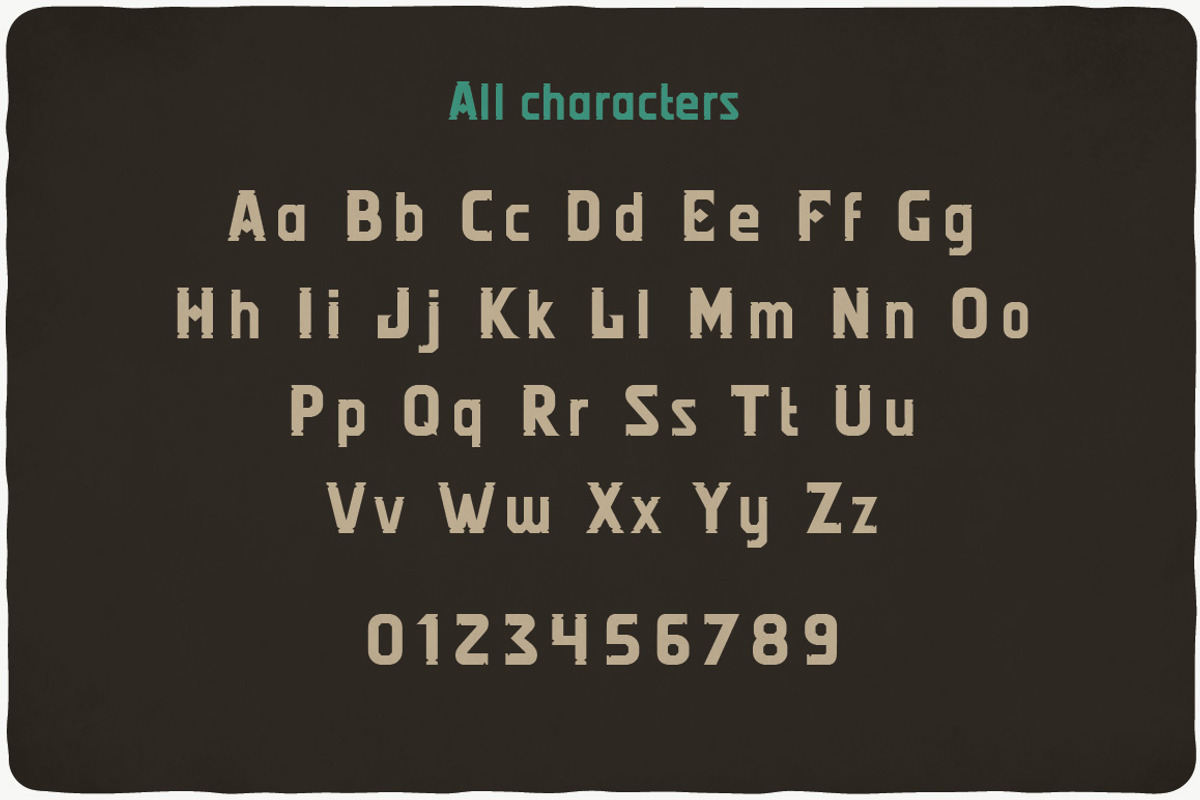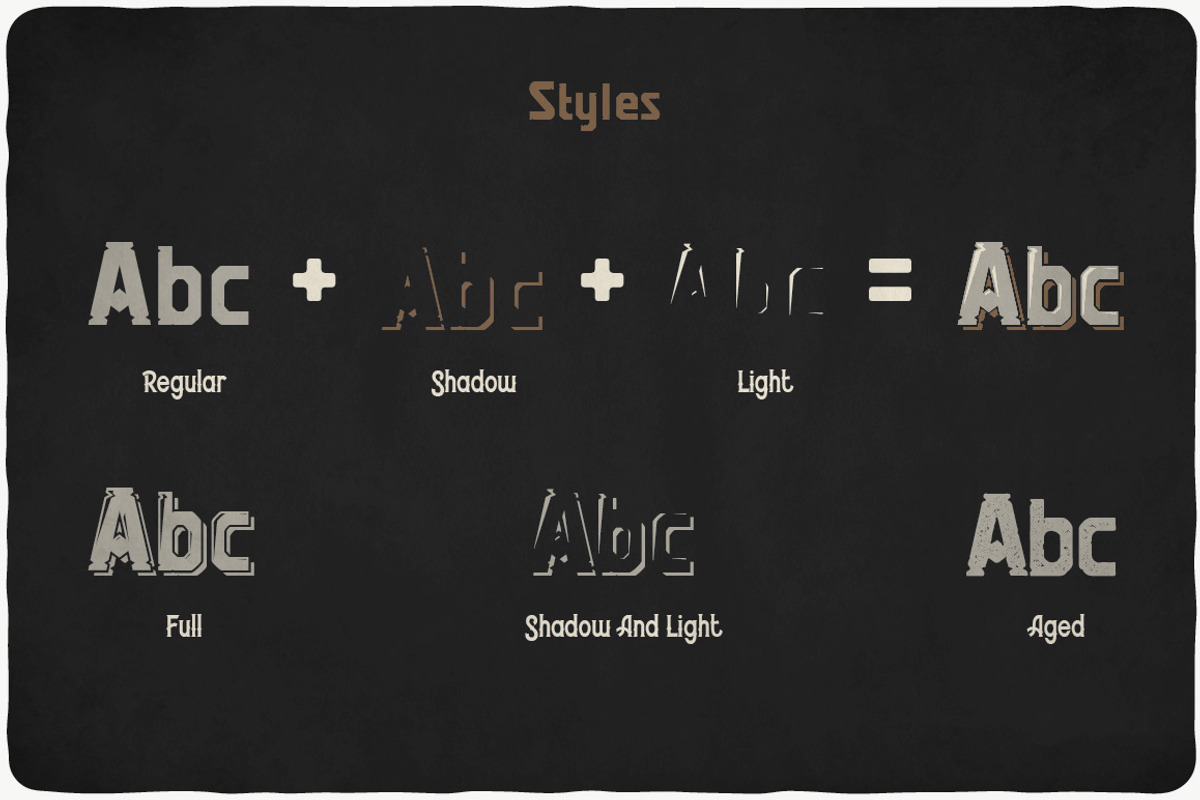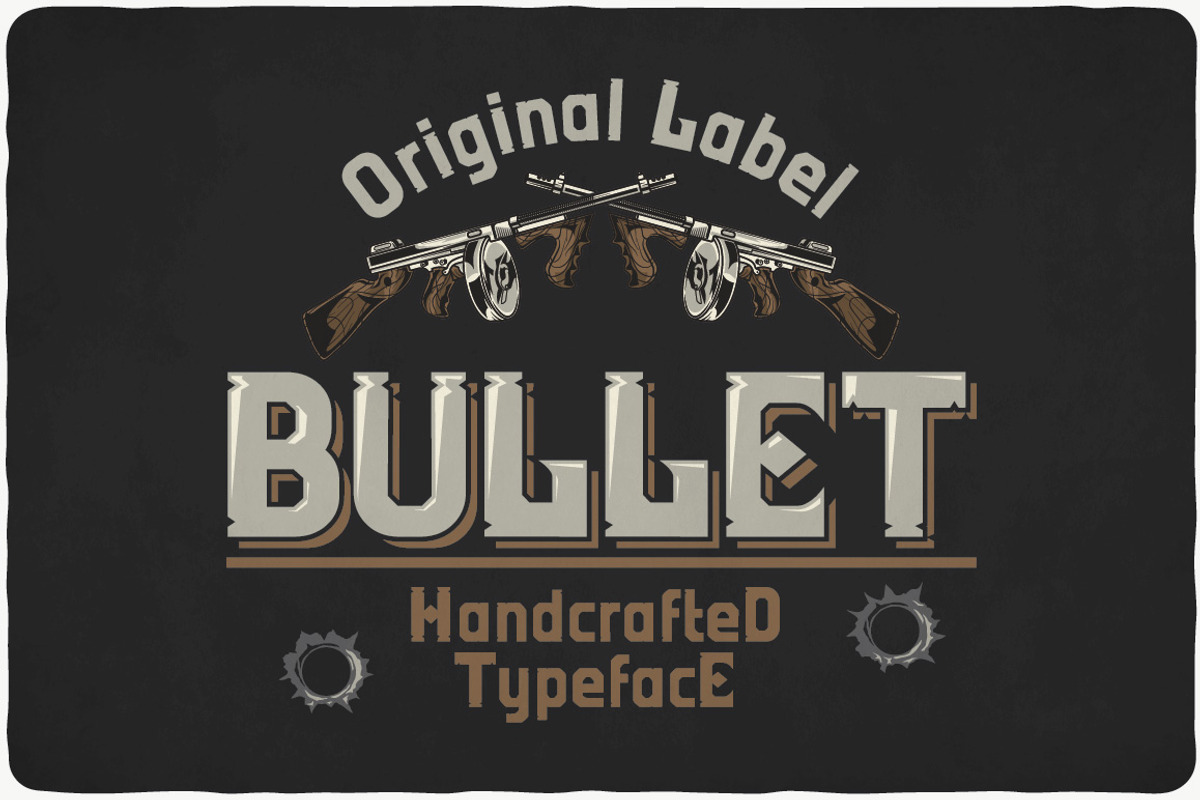
Bullet Typeface
Introducing a vintage look label typeface named "Bullet". This typeface contains layers - light and shadow, for sample look at 4th preview. Plus aged (distressed) version. Typeface is good viewed on any yours design.
- This typeface contains layers - light and shadow, for sample look at 4th preview.
- Bullet Light
- Bullet Light Shadow
- Bullet Regular
- Bullet Aged
- Bullet Full
- Bullet Shadow
Bullet Typeface by VozzyStock fits naturally into Branding, posters, packaging, typography.